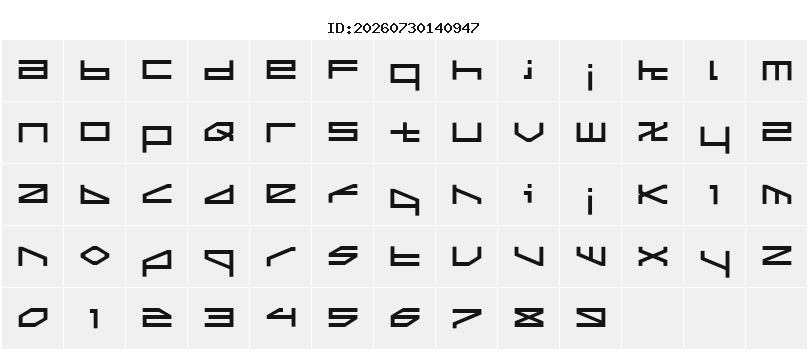
ltr-02:morbid vision Preview
About ltr-02:morbid vision.ttf
ltr-02:morbid vision.ttf is a modern, elegant sans-serif font designed for ultimate readability and visual harmony. Perfect for branding, headlines, web design, and print materials.